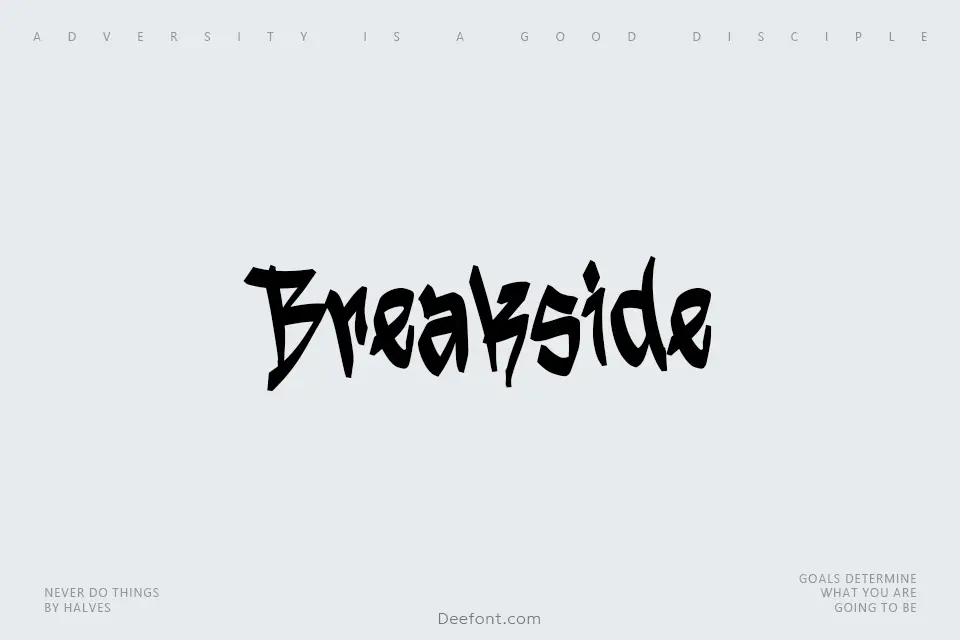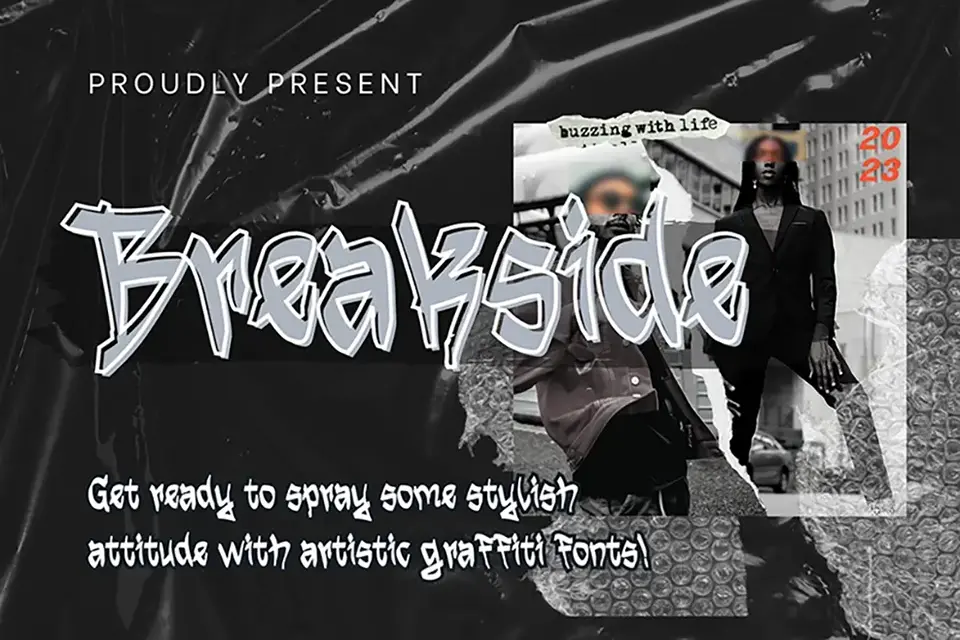
Breakside Font
Breakside is a bold and energetic graffiti script font that brings raw, street-inspired character to your designs. Featuring jagged, brush-cut strokes and sharp, lightning-like kinks, this typeface delivers an edgy aesthetic perfect for music flyers, streetwear labels, skate shop branding, album art, and event posters. The tightly packed letterforms create maximum impact at large sizes, making Breakside ideal for headlines and display work. Its gritty, inky texture conveys authenticity and attitude, capturing the essence of urban typography. For balanced design, pair this dynamic script with clean sans-serif fonts for body copy.